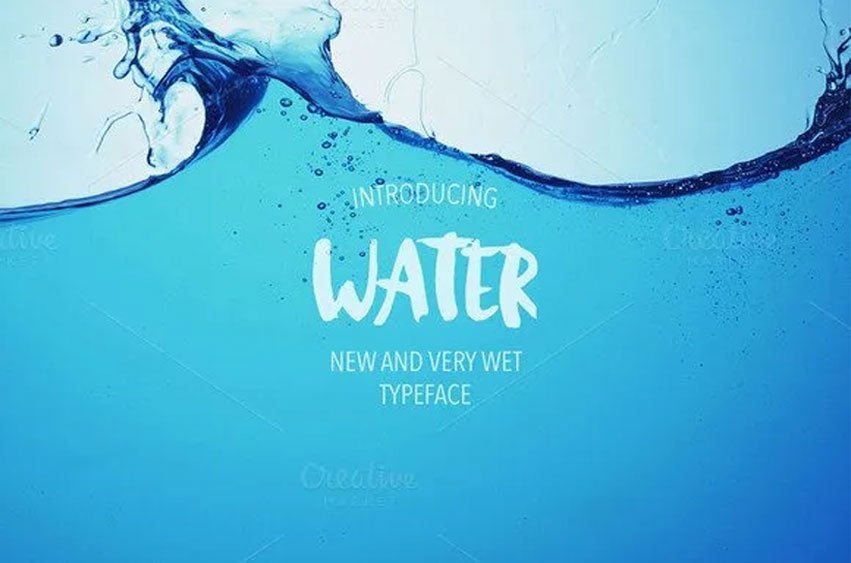
Water Font is a wonderful font drawn by hand and with love! Water can be used for fashion, Invitations, business cards, design and much more.
Every letter has a unique and beautiful touch, which will make your design come alive!